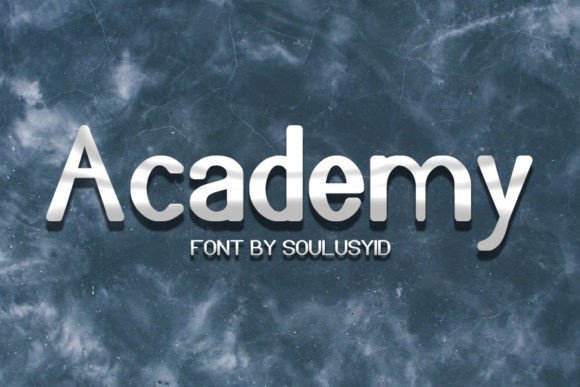
Have you ever stared at a blank screen, wondering which font to choose for your latest design project? The pressure to create something visually stunning can be overwhelming, but what if you had the perfect tool to make your job easier?
Enter Academy Font, a clean sans-serif font that’s designed to help you elevate your branding, social media, and advertising efforts. With its versatility and timeless appeal, Academy Font is the perfect addition to any designer’s toolkit. Whether you’re working on a logo, product packaging, or wedding invitation, this font is sure to make your designs stand out. For designers, Academy Font offers a valuable resource that’s both easy to use and incredibly effective.
Academy Font Key Features
- Font Family: Academy Font is a sans-serif font family designed for academic and professional use. It comes in multiple weights, including Light, Regular, Medium, Bold, and Black.
- Unique Characteristics: The font features a clean and modern design with a subtle flair, making it ideal for academic and professional materials, such as textbooks, presentations, and business reports.
Design Review: Academy Font
Academy Font has a certain charm to it, and I can see why it’s a popular choice for educational institutions and publishers. The font’s clean lines and subtle flair make it easy to read, even in large blocks of text.
- Legibility: Academy Font is highly legible, making it perfect for lengthy texts and documents.
- Scalability: The font scales well across different sizes and resolutions, ensuring it looks great on both digital and printed materials.
- Neutral tone: Academy Font’s neutral tone makes it versatile and suitable for a wide range of topics and styles.
- Lack of personality: While Academy Font is clean and legible, it can come across as bland and uninteresting at times.
- No bold personality: The font’s subtle flair can make it difficult to convey strong emotions or emphasis, especially in situations where a more dramatic tone is needed.
- Not ideal for creative projects: Academy Font is best suited for formal, educational, or informative content. It may not be the best choice for creative projects or materials that require a more playful or expressive tone.
Overall, Academy Font is a solid choice for educational and informative content, but it may not be the best fit for projects that require a more dynamic or creative tone.
Tips for Getting the Most Out of Academy Font
For optimal results, use Academy Font in headings and titles to create a clear and professional look. You can also experiment with different font sizes and colors to add visual interest. Additionally, consider using Academy Font in conjunction with other fonts to create a balanced and harmonious design.
Academy Font is commonly used in educational and corporate settings to create a sense of professionalism and authority. It is also used in marketing materials, such as brochures and flyers, to add a touch of sophistication.